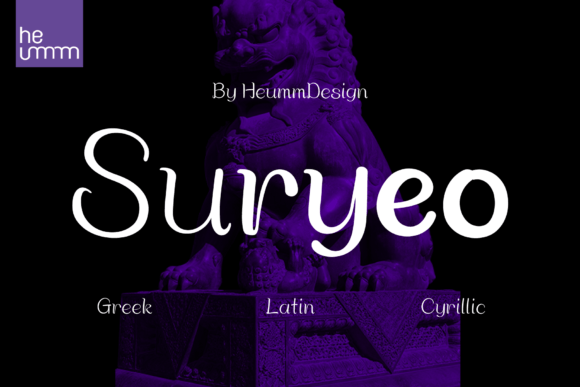
Journey into the world of Suryeo, a font family that embodies the essence of Korean calligraphy. Suryeo, meaning "careful writing" in Korean, is more than just a collection of fonts; it's an invitation to express your creativity with elegance and sophistication. Dive into the world of Suryeo, where each stroke tells a story, and every letter dances with grace.
This enchanting font family, meticulously crafted by heummdesign, captures the essence of carefully written calligraphy. Inspired by the beauty of traditional Korean classics, Suryeo seamlessly blends the charm of the past with the vibrancy of the present. With its versatile styles, ranging from delicate hairlines to bold strokes, Suryeo adapts effortlessly to a multitude of design projects, from heartfelt invitations to captivating logos.
Unleash your creative spirit with Suryeo's captivating script font. Each character, shaped with precision and fluidity, dances across the page, evoking a sense of timeless elegance. Its graceful curves and sweeping lines add a touch of refinement to any design, making it perfect for crafting elegant logos, eye-catching social media posts, or heartfelt wedding invitations.
Experience the versatility of Suryeo's diverse styles. From the delicate Regular to the bold Black, each weight carries its own unique personality. The Regular weight exudes a sense of airiness and lightness, ideal for adding a touch of understated elegance to your designs. The Bold weight, on the other hand, commands attention with its confident strokes and solid presence, making it perfect for headlines, posters, and branding projects.
Indulge in the beauty of Suryeo's diverse alternates. This font family offers a treasure trove of alternate characters, allowing you to explore endless creative possibilities. Experiment with different letterforms, swashes, and ligatures to add a touch of individuality and flair to your designs. From playful invitations to intricate logos, Suryeo's alternates provide endless opportunities for personalization.